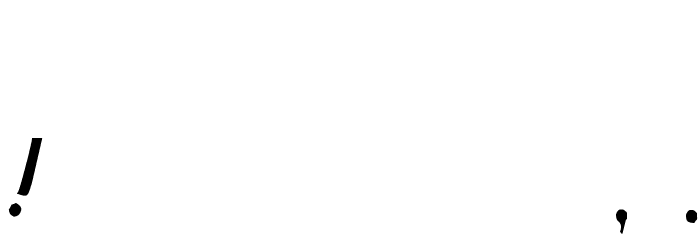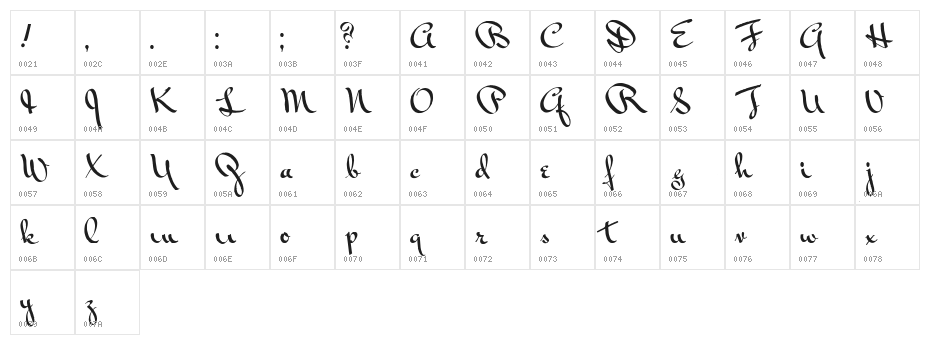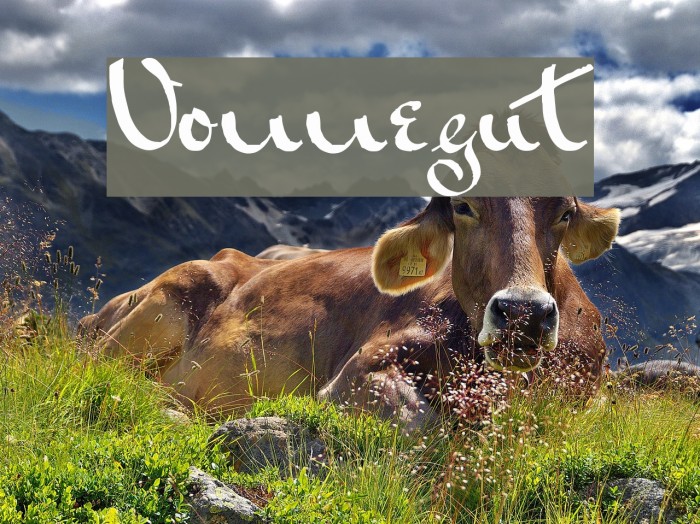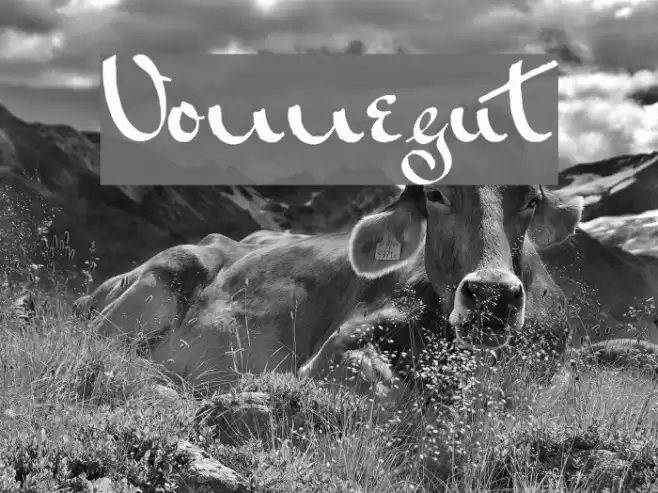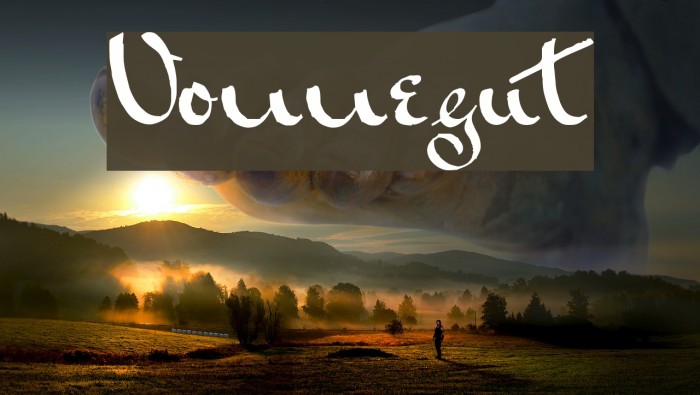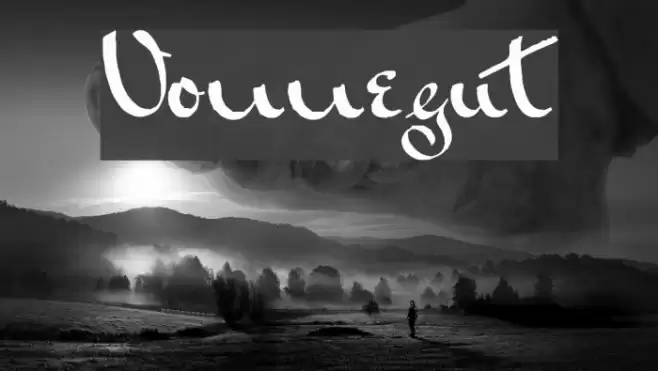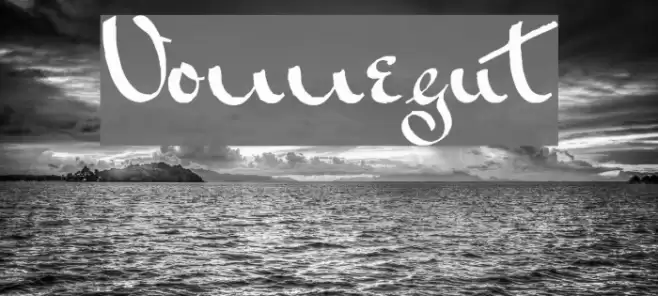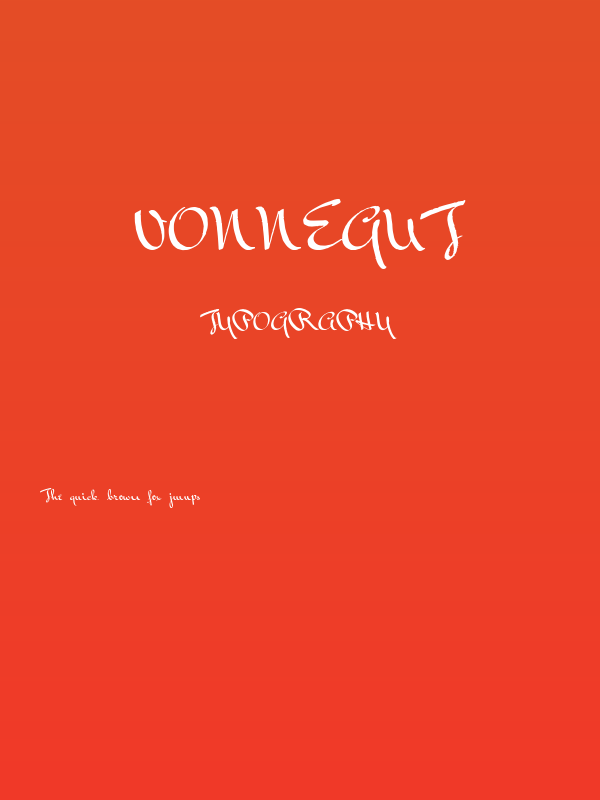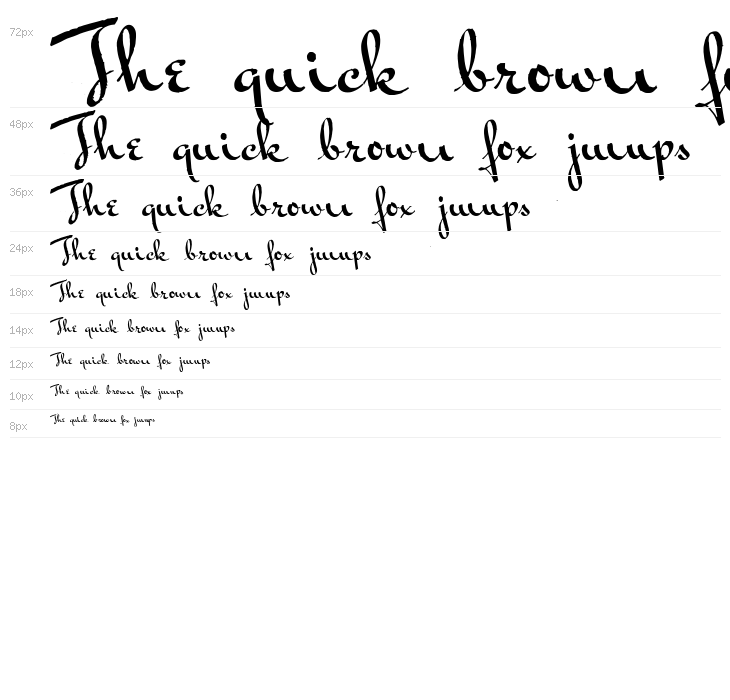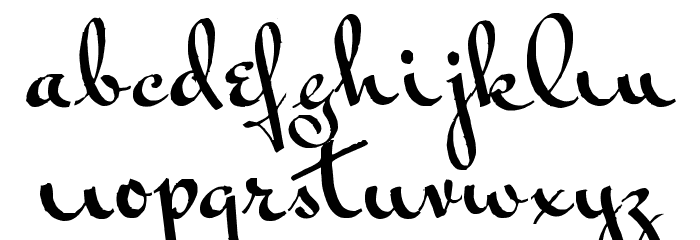
Vonnegut Font
Vonnegut Description
This font exudes a dynamic and expressive style, characterized by its flowing, cursive script that combines elegance with a touch of whimsy. The letters are crafted with a calligraphic flair, featuring sweeping curves and varying stroke widths that create a sense of movement and fluidity. The uppercase letters are bold and prominent, while the lowercase letters maintain a consistent rhythm, enhancing readability. The font's unique personality is further accentuated by its playful and artistic design, making it suitable for creative and decorative purposes. The special characters, including punctuation marks, are thoughtfully integrated, maintaining the overall aesthetic. This font is perfect for projects that require a personal and artistic touch, such as invitations, greeting cards, and branding materials.